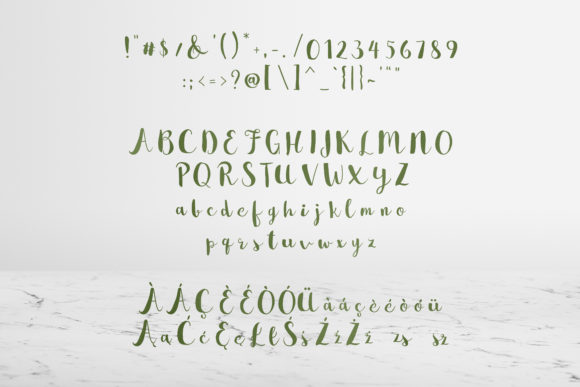
Barburka Font
About Barburka Font
Barburka is a beautiful and unique handwritten font, sending out a relaxed and flowing vibe. Its casual charm makes it appear wonderfully down-to-earth, readable and, ultimately, incredibly versatile. Use it to elevate each of your creative idea!